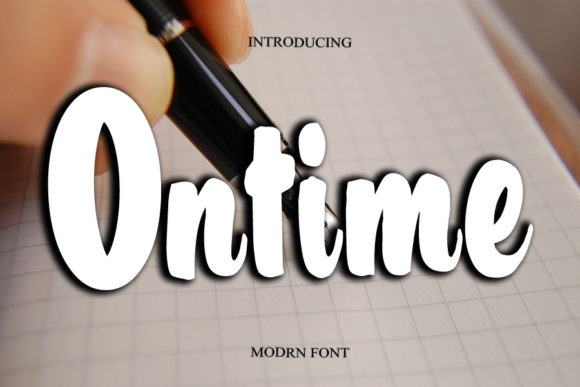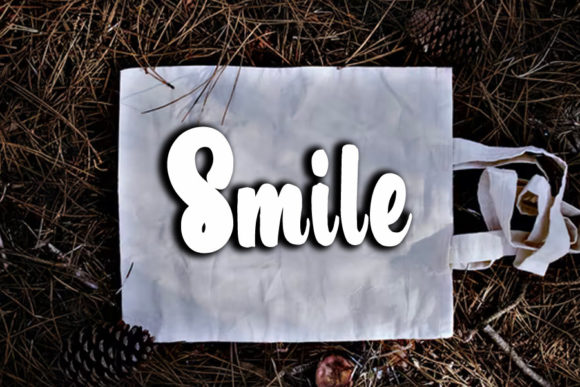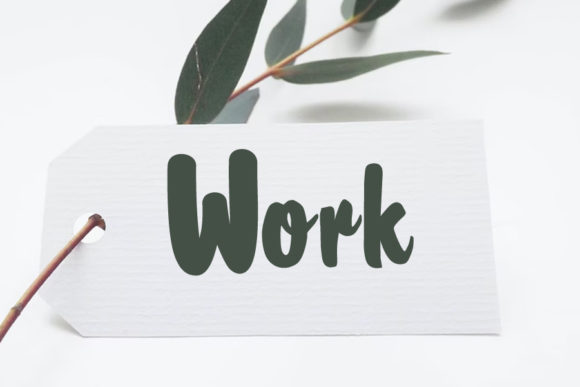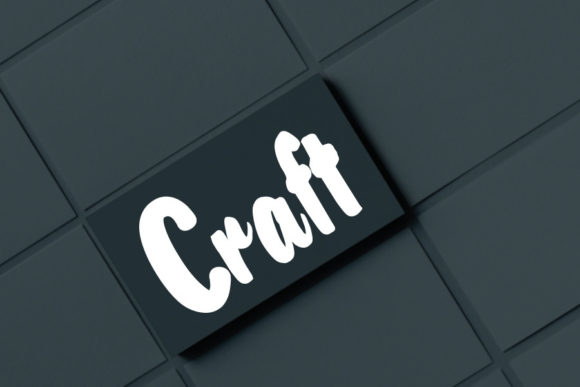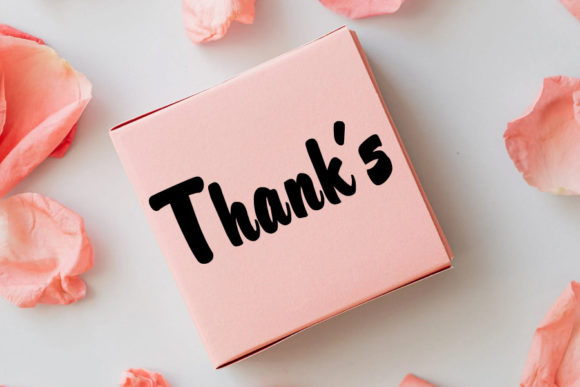
About Ontime Font
“Ontime” is a brushed lettered cursive script font that embodies a unique blend of style and grace. Its ravishing appearance makes it a perfect choice for crafting exquisite wedding invitations, captivating stationery art, attention-grabbing social media posts, and a wide range of other creative projects.
The font’s brushed and cursive letterforms lend an air of artistic flair and elegance to your designs. Whether you’re working on formal wedding materials, intricate stationery designs, or engaging digital content, “Ontime” adds a touch of sophistication that sets your creations apart.
The font’s versatility allows it to seamlessly adapt to various design contexts. Its brushed lettering and cursive flow create a sense of fluidity, making it a fitting option for projects that require a stylish and visually captivating touch. By integrating “Ontime” into your designs, you infuse them with a sense of beauty and allure that resonates with viewers.
To summarize, “Ontime” is more than just a font—it’s a creative tool that enhances your designs with its brushed, cursive script. Its ability to evoke elegance and its adaptability to different design scenarios make it a valuable asset for designers seeking to create memorable and visually stunning projects, particularly those related to weddings, artistry, and impactful digital communication.